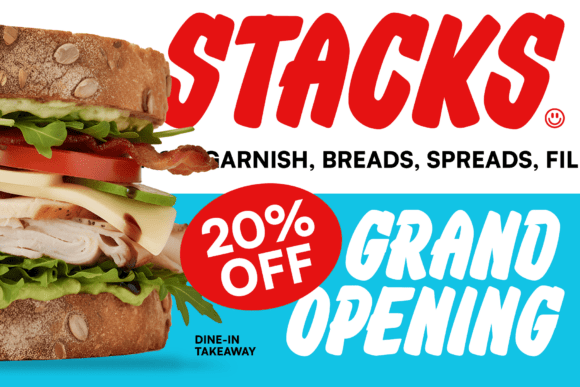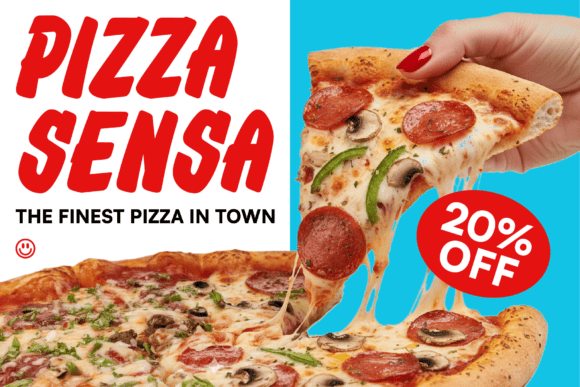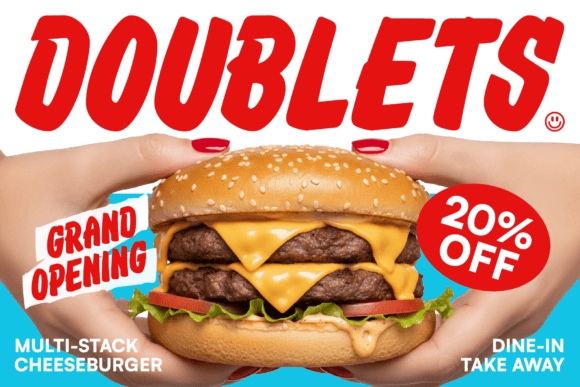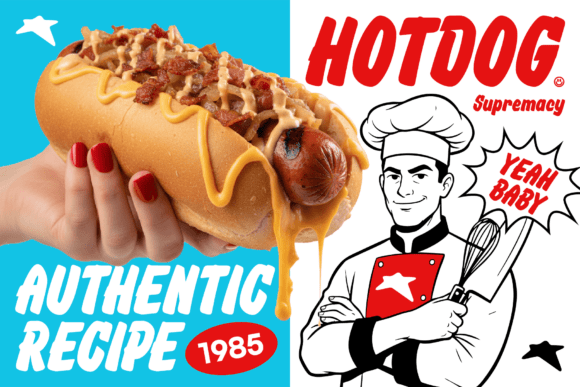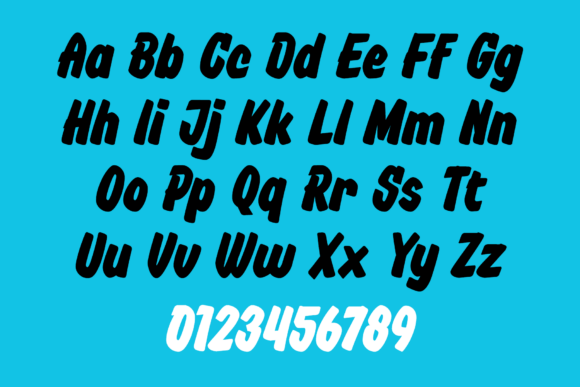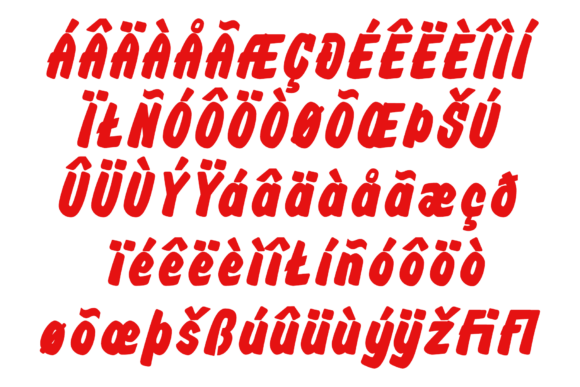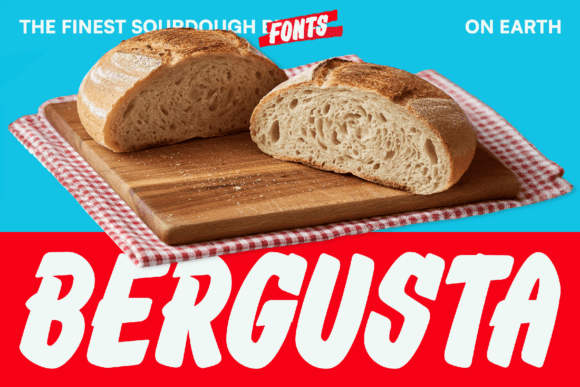
Bergusta Font: Bringing the Bold, Hand-Painted Soul of 70s and 80s Americana to Your Menu
Are you looking for a font that can add a touch of nostalgia and warmth to your menu or food branding? Look no further than Bergusta, a modern font inspired by the iconic, sun-drenched signage of American main streets in the 1970s and 1980s. In this article, we’ll explore the unique features of Bergusta and why it’s a “must-have” for food branding.
The Human Touch: What Makes Bergusta Special
Bergusta is a tribute to the era of craftsmanship, when sign painters would meticulously hand-paint signs that seemed to come alive on the streets of America. This font captures the thick, buttery strokes of a master sign painter’s brush, giving it a heavyweight presence and a dynamic forward lean that makes it hard to ignore. Unlike digital fonts that can look sterile or uniform, Bergusta has a natural, organic flow that mimics the slight imperfections and soulful curves of a hand-lettered masterpiece.
Deliciously Bold: Perfect for High-Impact Headlines
One of the standout features of Bergusta is its bold, eye-catching design. This font is perfect for high-impact headlines that need to grab attention across a crowded room or a busy social media feed. Whether you’re designing a menu for a trendy cafe or a food truck, Bergusta can help you make a statement. Its thick strokes and dynamic lean give it a sense of energy and movement, making it impossible to ignore.
Retro Authenticity: Precisely Engineered for Nostalgia
Bergusta is precisely engineered to evoke the nostalgia of 1970s and 80s advertising without feeling “dated.” The font’s designers have carefully studied the iconic signage of this era, from roadside diners to bustling New York delis, to create a font that feels authentic and retro. At the same time, Bergusta is modern and versatile, making it perfect for food branding that needs to stand out in a crowded market.
Built for Appetit: Why Bergusta is a “Must-Have” for Food Branding
So why is Bergusta a “must-have” for food branding? Here are just a few reasons:
- Unique and Memorable: Bergusta’s bold, hand-painted design makes it instantly memorable and unique. Your customers will remember your brand and menu design long after they’ve left your restaurant or food truck.
- Versatile: Bergusta is a versatile font that can be used in a variety of contexts, from menus and signage to social media graphics and advertising.
- Nostalgic: Bergusta’s retro authenticity will transport your customers back to a bygone era of American cuisine, evoking feelings of warmth and nostalgia.
Tips for Using Bergusta in Your Design
Here are a few tips for using Bergusta in your design:
- Use it boldly: Bergusta is designed to make a statement, so don’t be afraid to use it boldly. Experiment with large font sizes and contrasting colors to make your headlines pop.
- Mix it with other fonts: Bergusta pairs well with a variety of other fonts, from modern sans-serifs to elegant scripts. Experiment with different font combinations to create a unique look that reflects your brand.
- Pay attention to spacing: Bergusta’s bold strokes and dynamic lean can make it feel crowded or overwhelming if not given enough space. Make sure to leave plenty of negative space around your text to create a clean and visually appealing design.
Bergusta is a unique and memorable font that’s perfect for food branding. Its bold, hand-painted design and retro authenticity make it a standout in a crowded market, while its versatility and nostalgic feel make it a “must-have” for designers and crafters. Whether you’re designing a menu for a trendy cafe or a food truck, Bergusta is sure to bring the bold, hand-painted soul of 70s and 80s Americana to your brand.